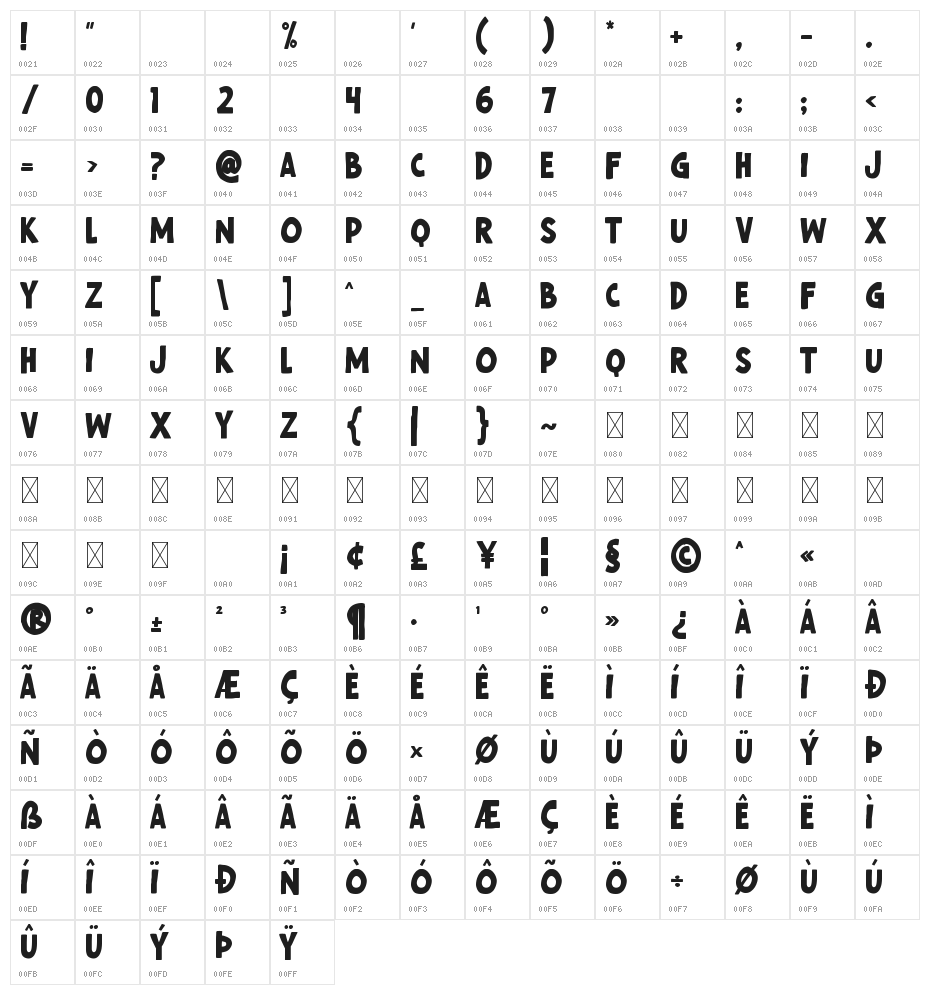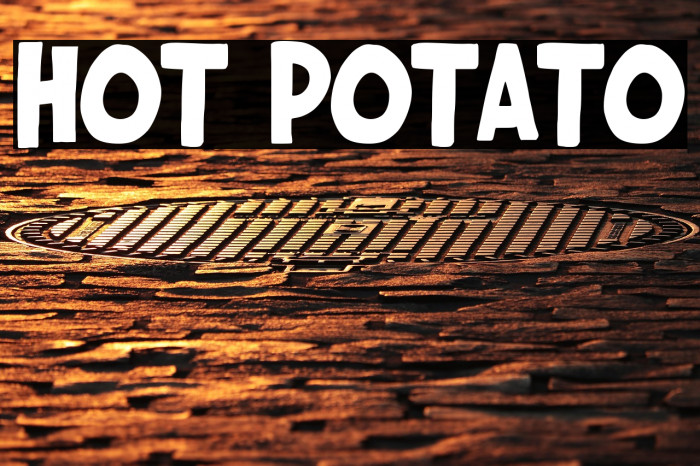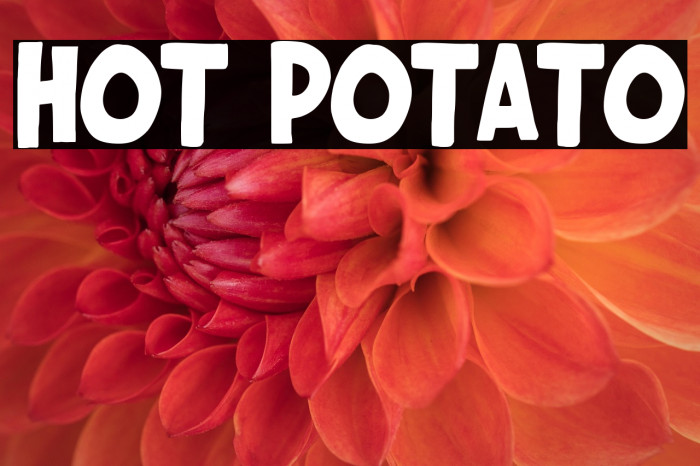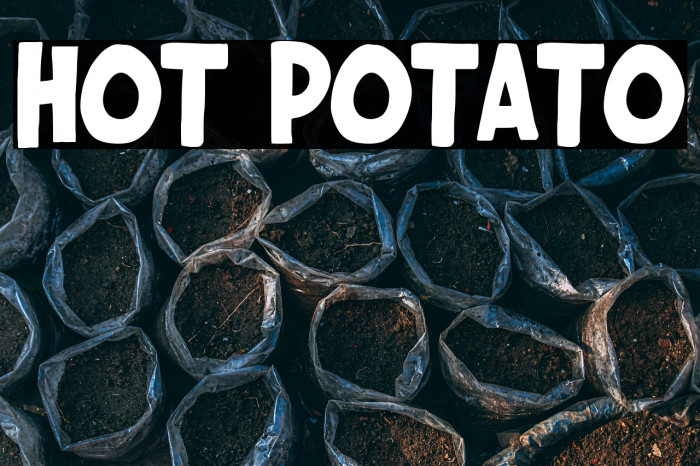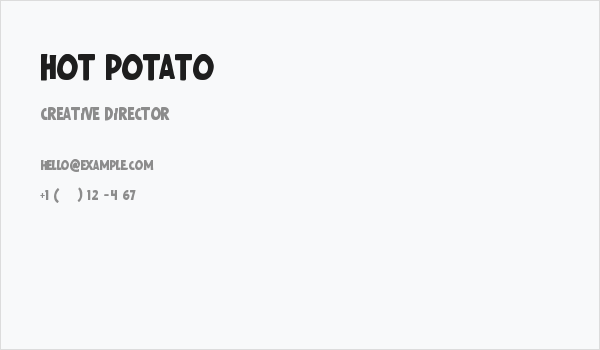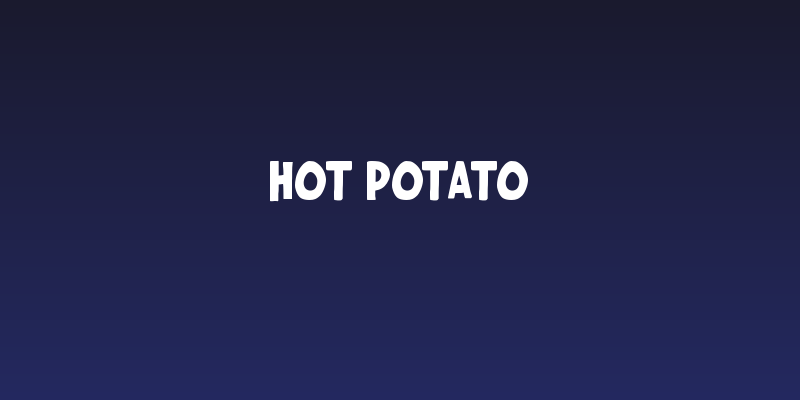
Hot Potato Font
Hot Potato Description
This font features a playful and bold style with a hand-drawn appearance. The letters are thick and rounded, giving a friendly and approachable feel. The uppercase and lowercase characters maintain a consistent weight, while the numbers and special characters complement the overall design. The irregularities in the strokes add to its charm, making it suitable for informal and creative projects. Its boldness ensures readability, while the unique style makes it stand out.
| Proposed Projects | Ideal for children's books, comic strips, playful branding, and casual event invitations. |